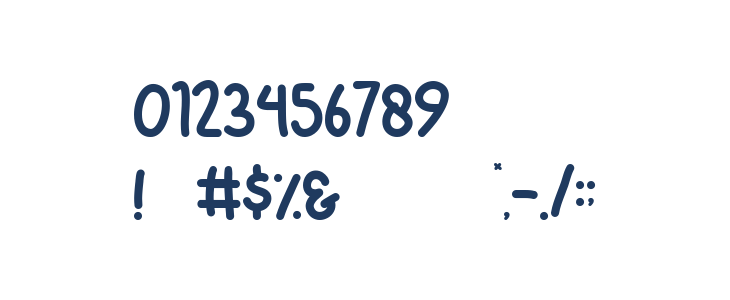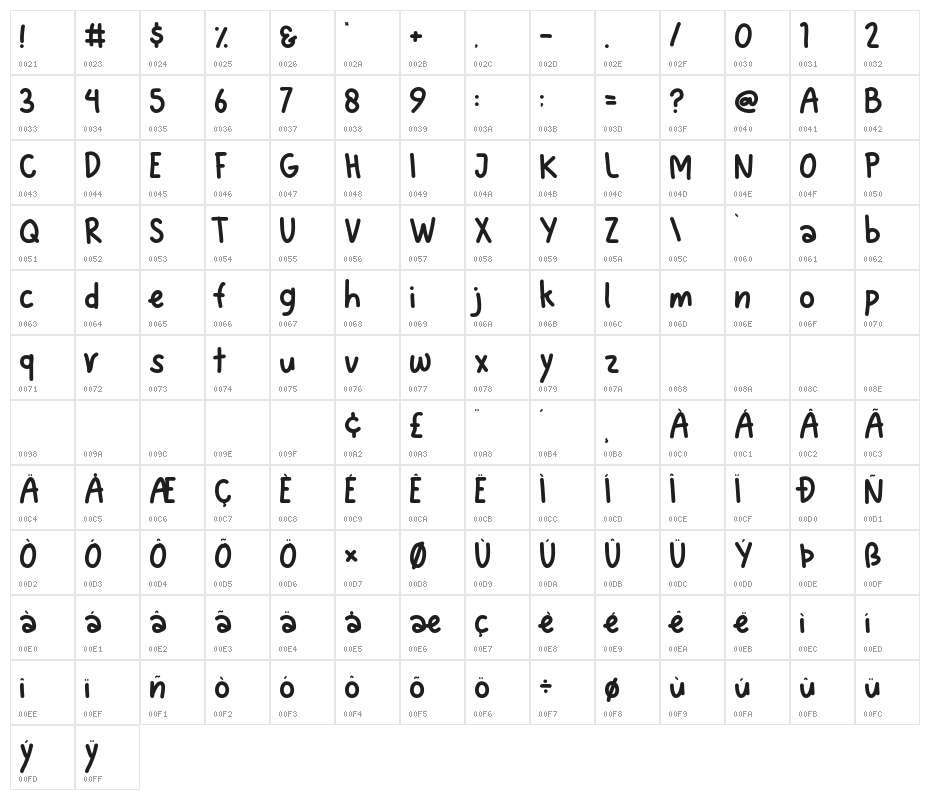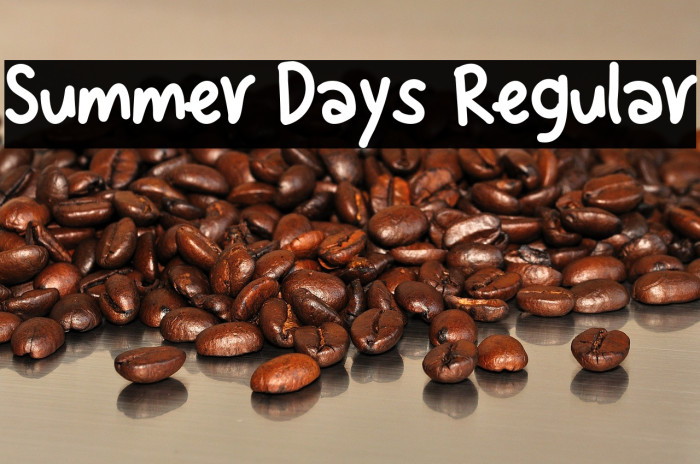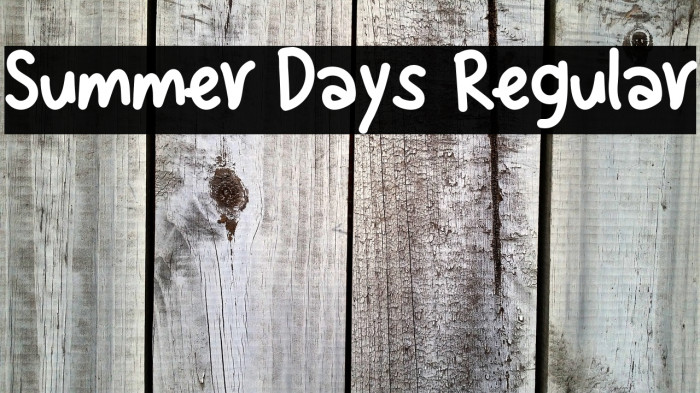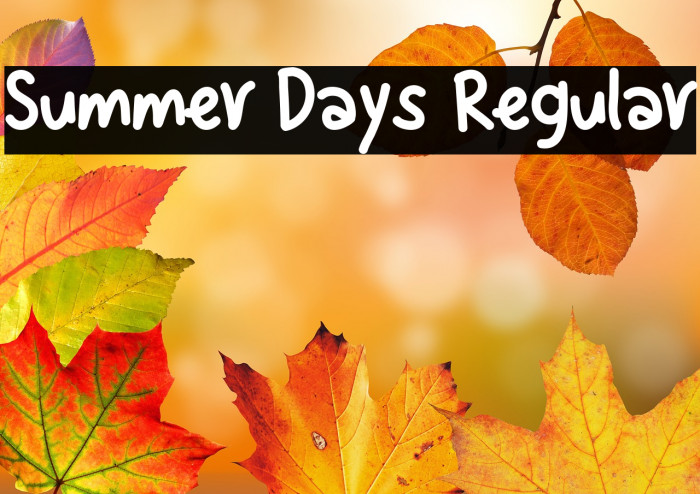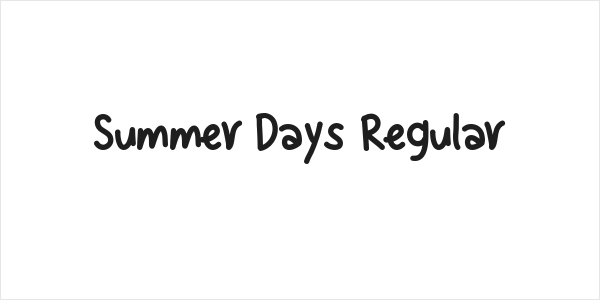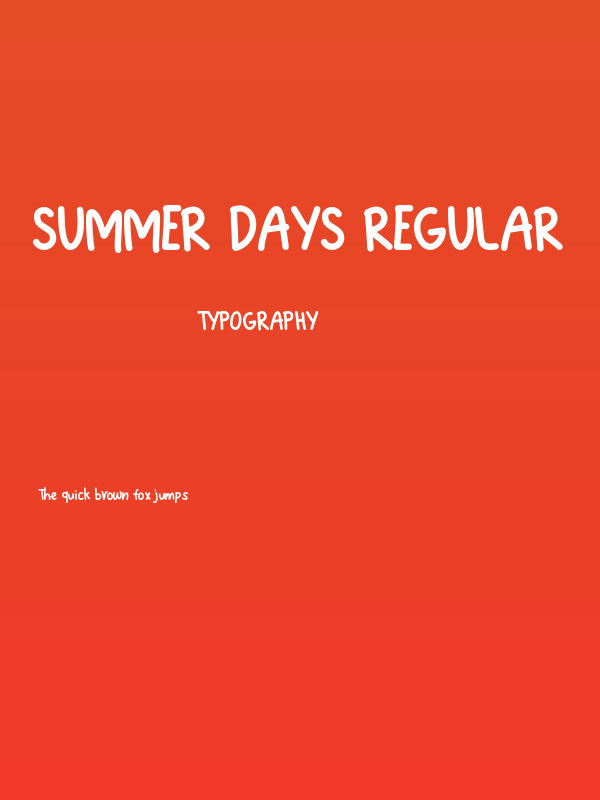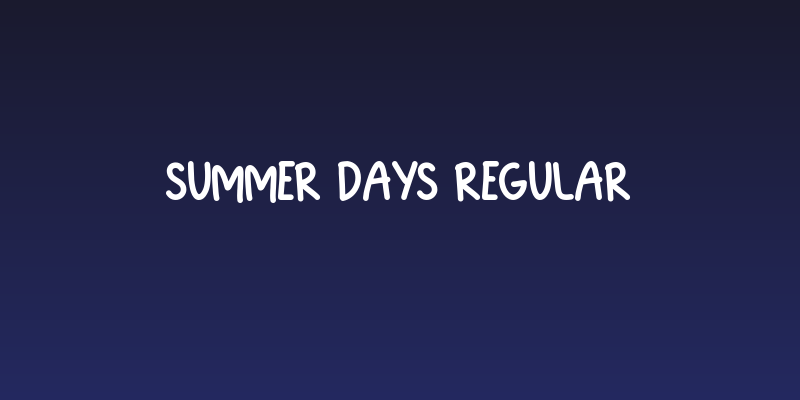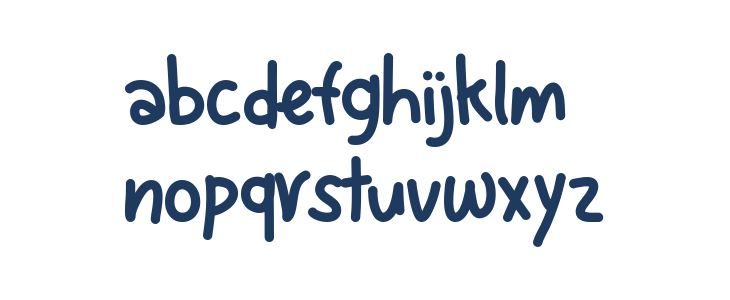
Summer Days Regular Font
Summer Days Regular Description
This playful and casual font features a handwritten style with a friendly and approachable appearance. The characters are rounded and slightly irregular, giving them a natural and organic feel. The uppercase and lowercase letters maintain a consistent style, with smooth curves and a slight tilt that adds to the informal vibe. Numbers and special characters are designed to match the overall aesthetic, ensuring a cohesive look across all text. This font is perfect for projects that require a personal touch or a relaxed atmosphere.